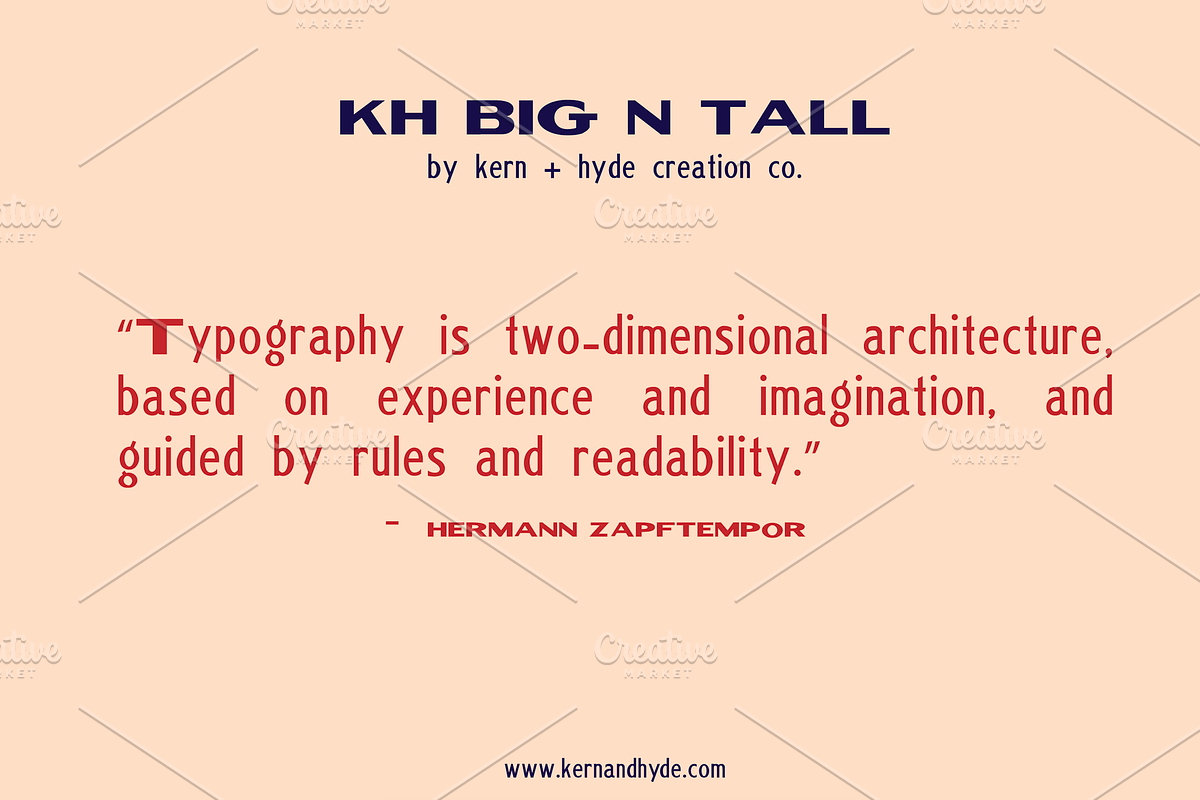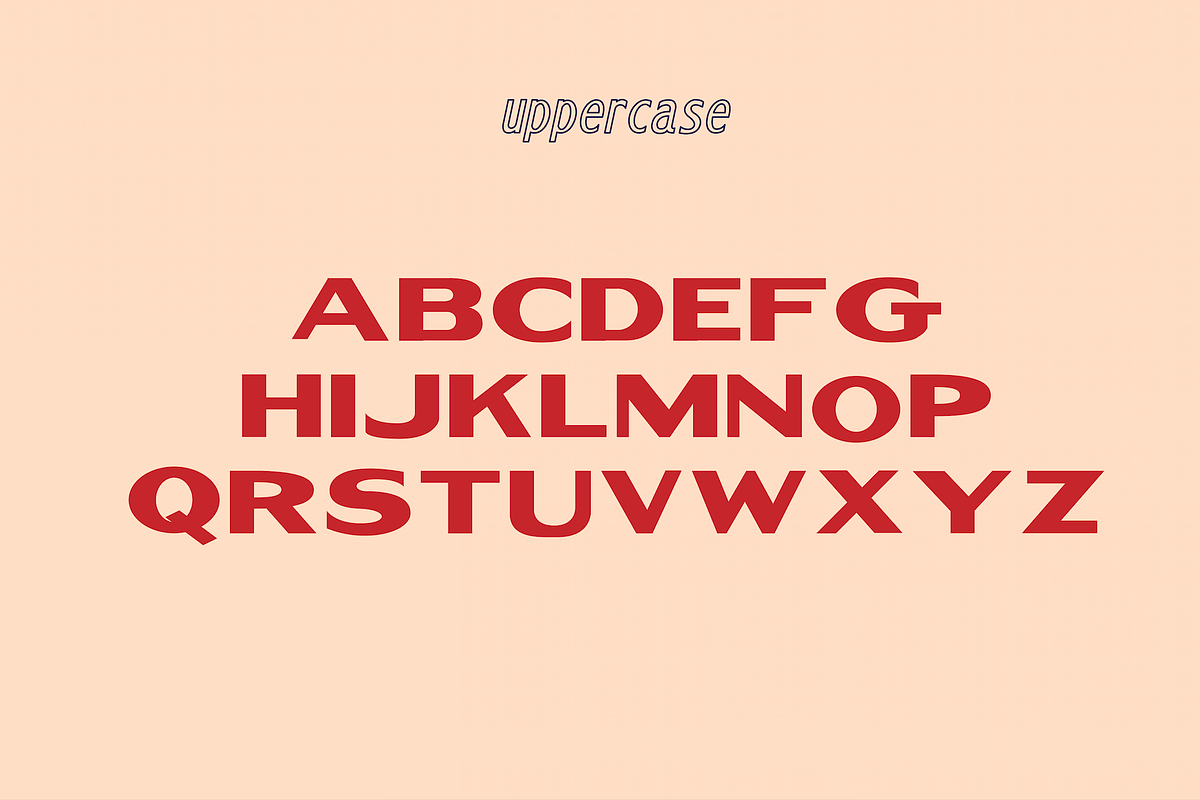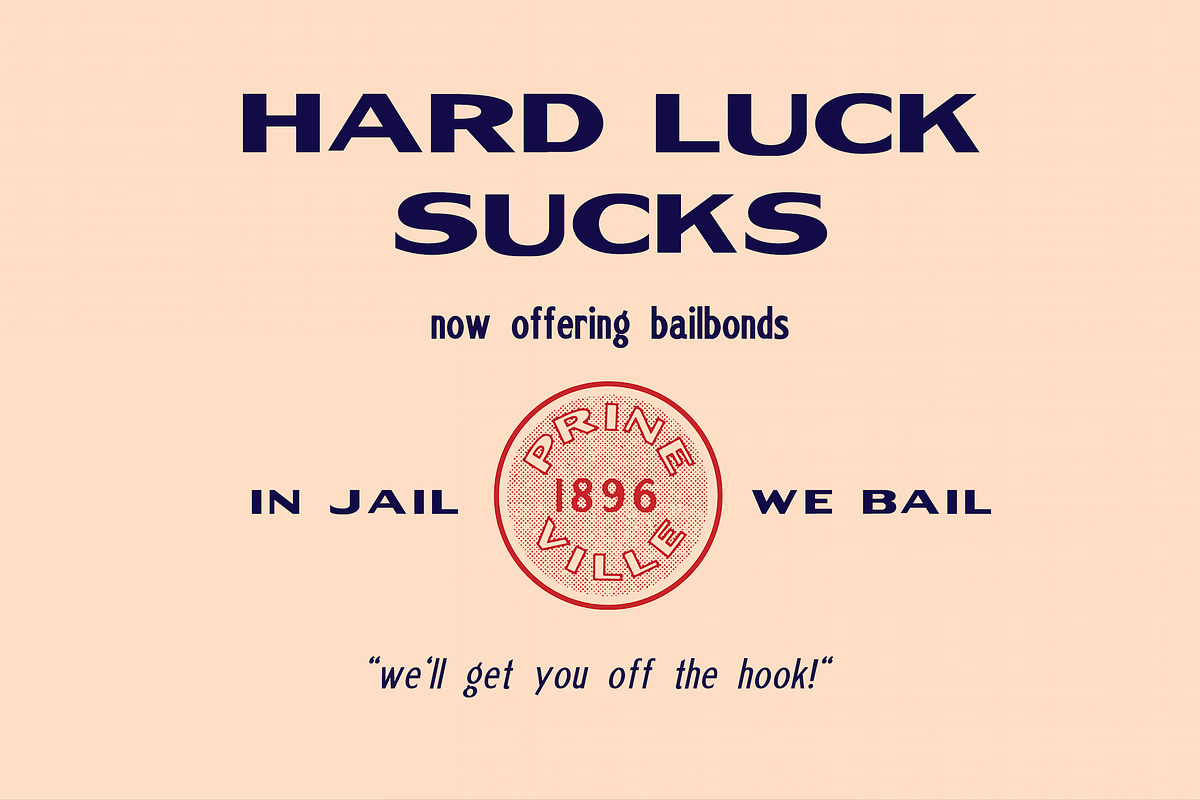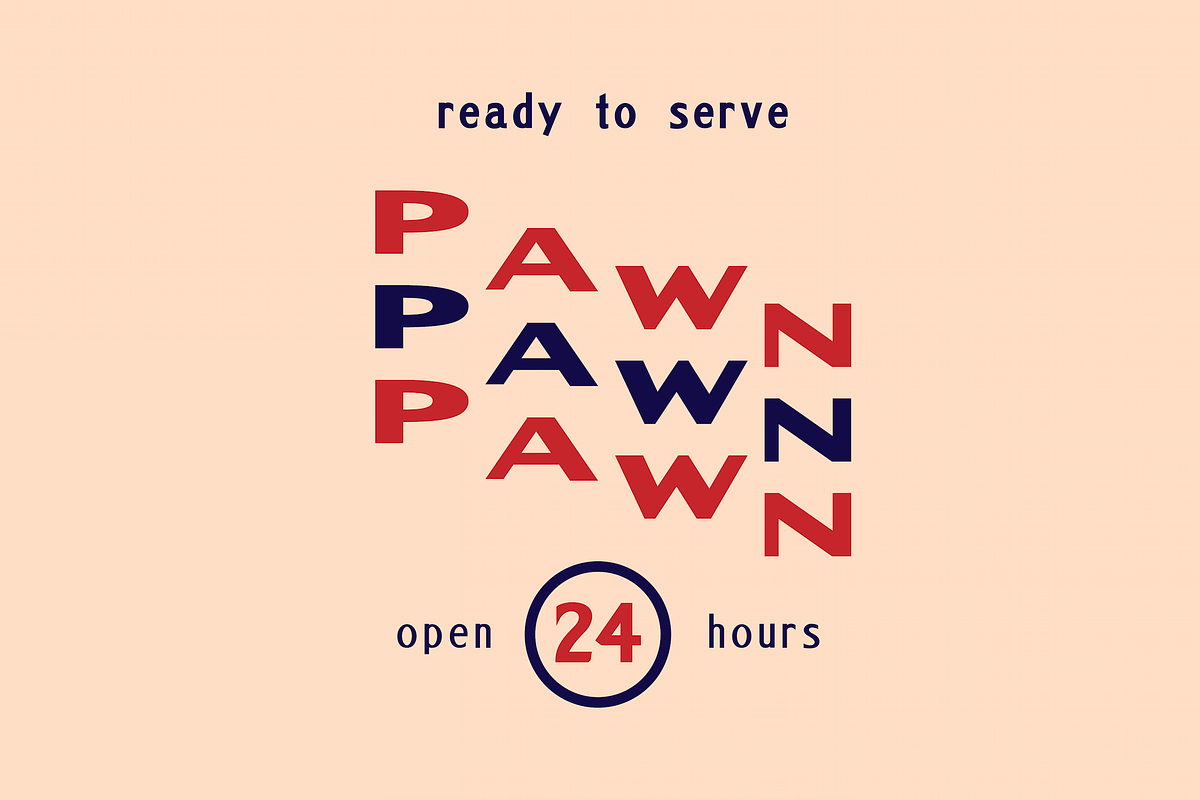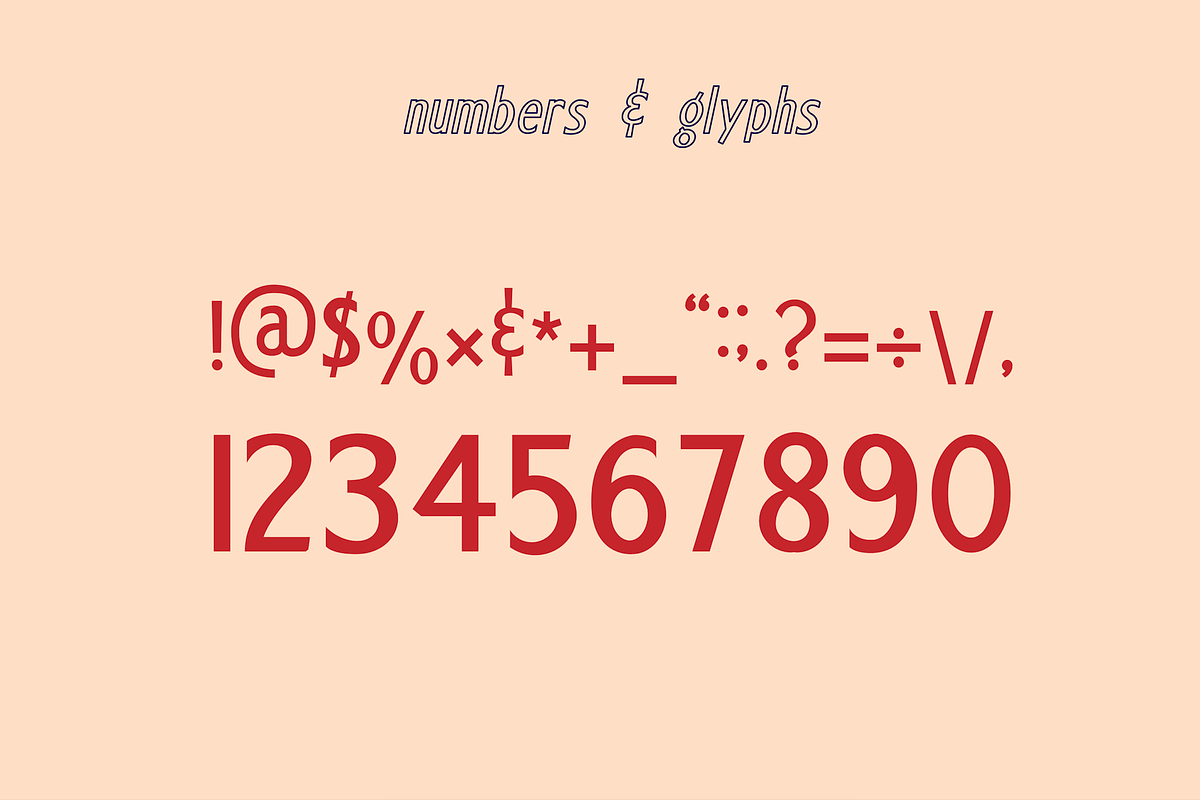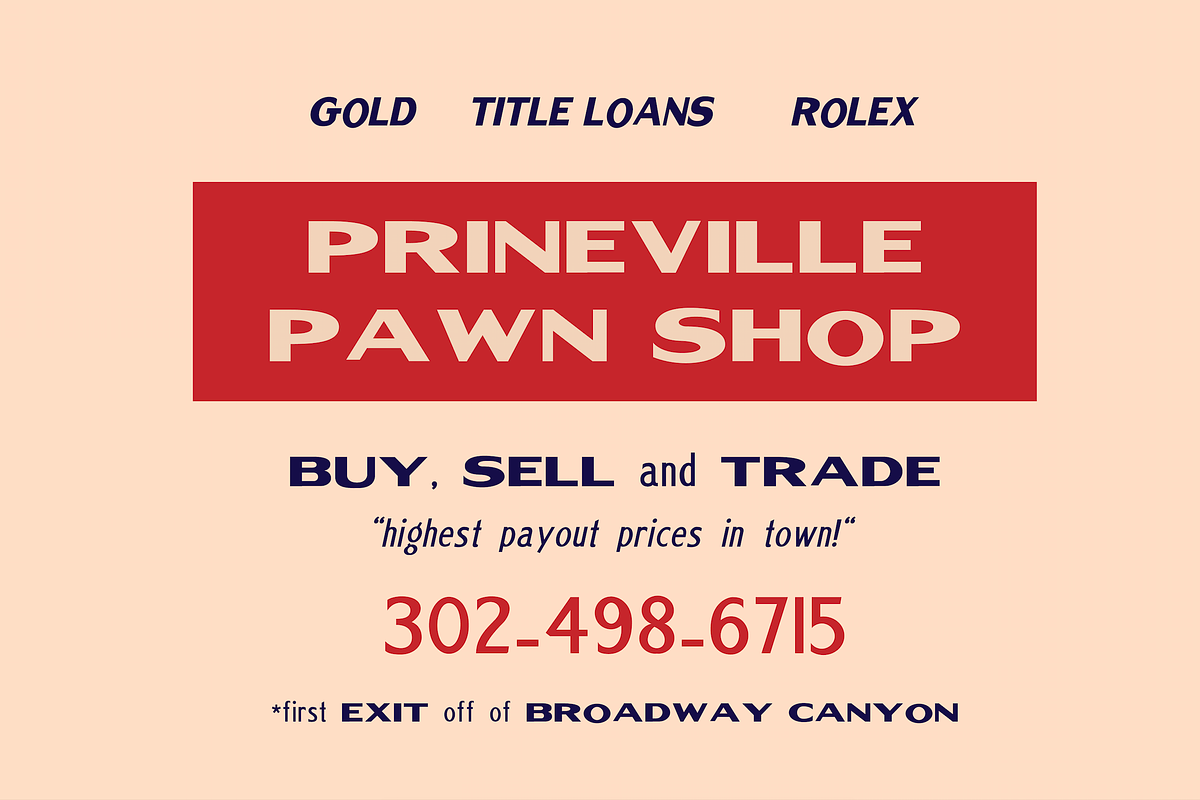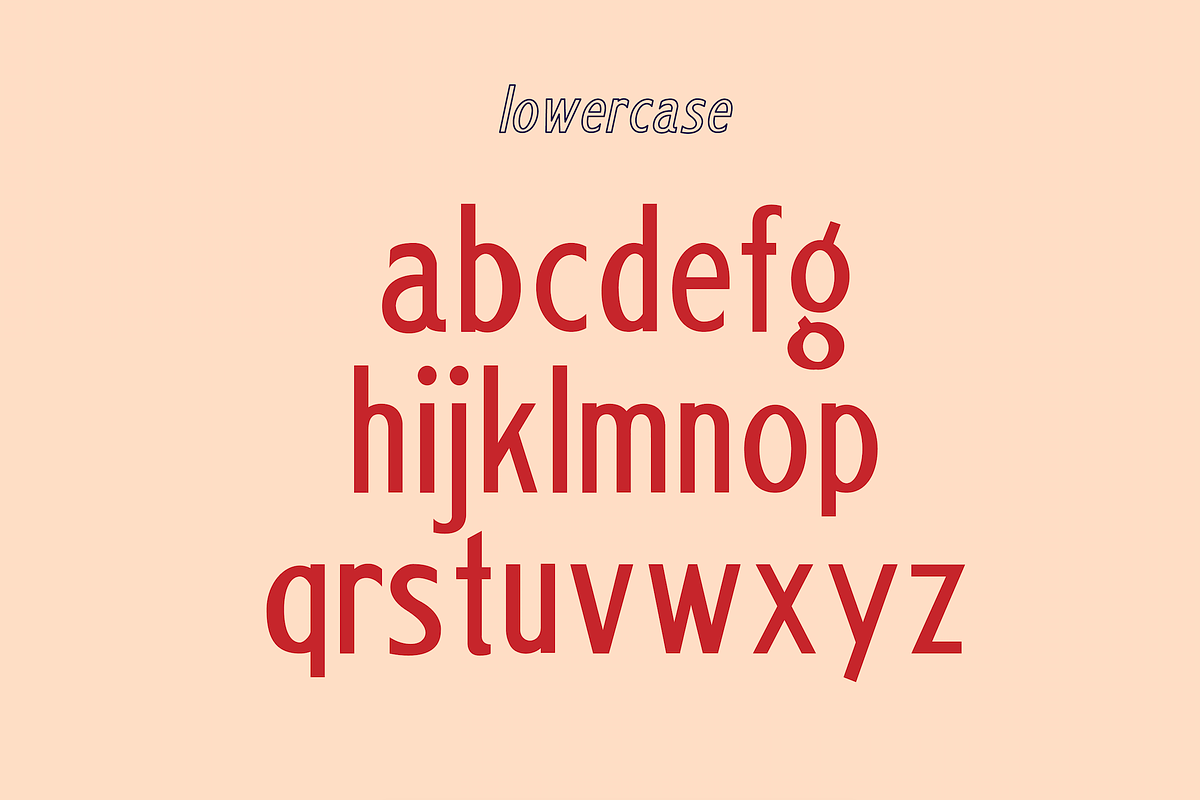
KH BIG N TALL TYPEFACE
Old Font New Tricks! Create authentic hand type graphics with this custom typeface. Great for any application!
KH BIG N TALL TYPEFACE by Kern + Hyde Creation Co. fits naturally into Branding, posters, packaging, typography.